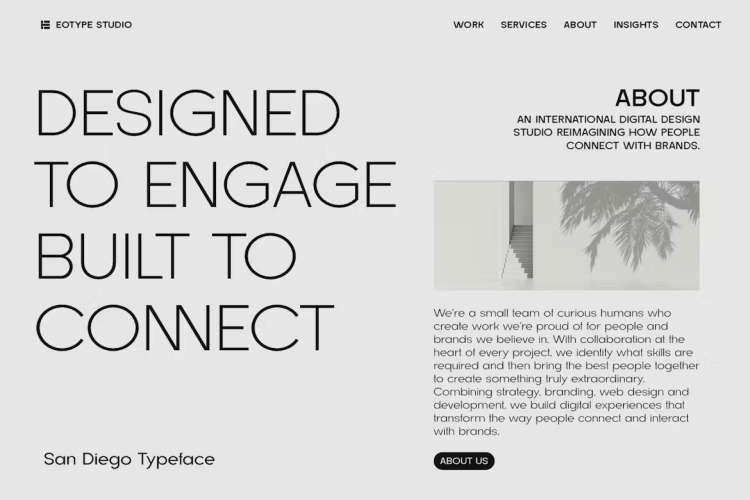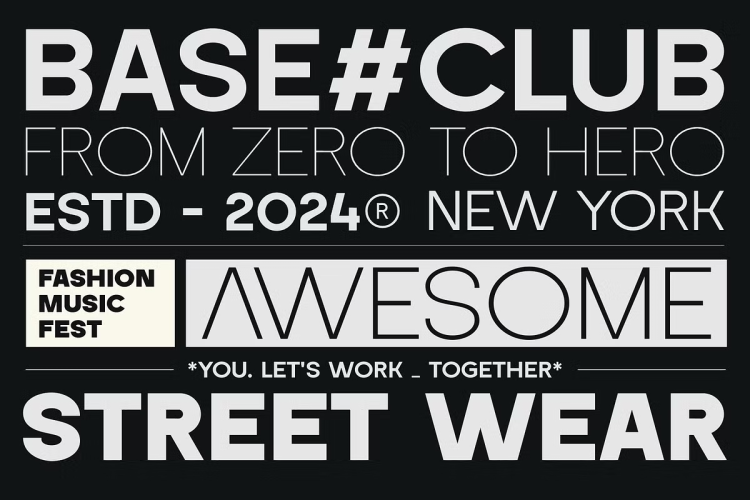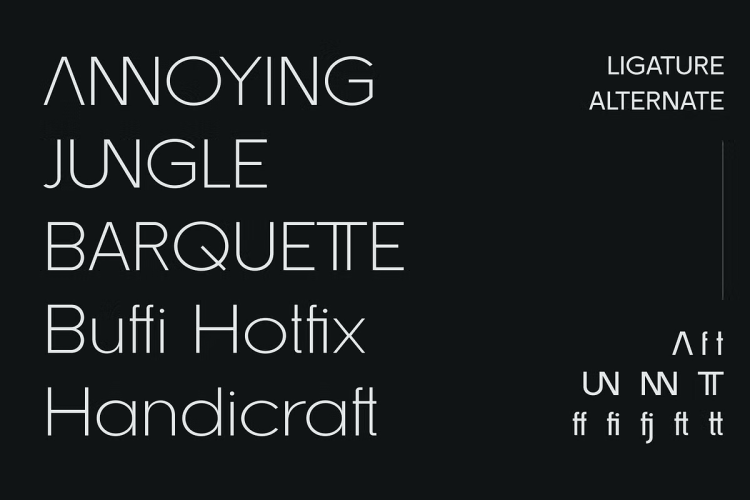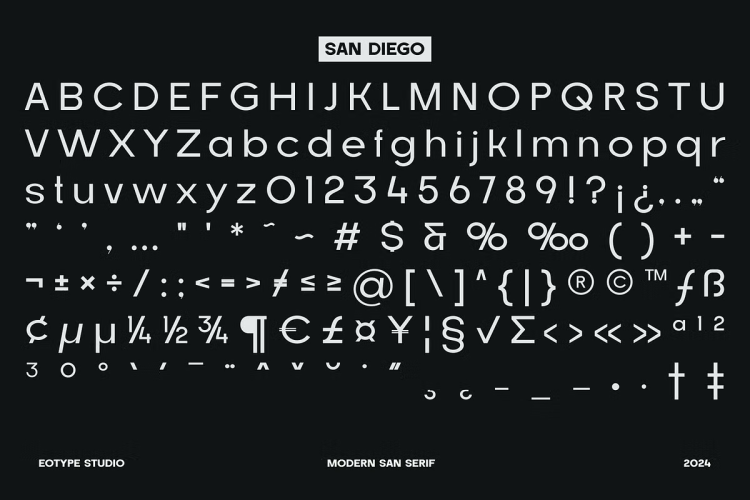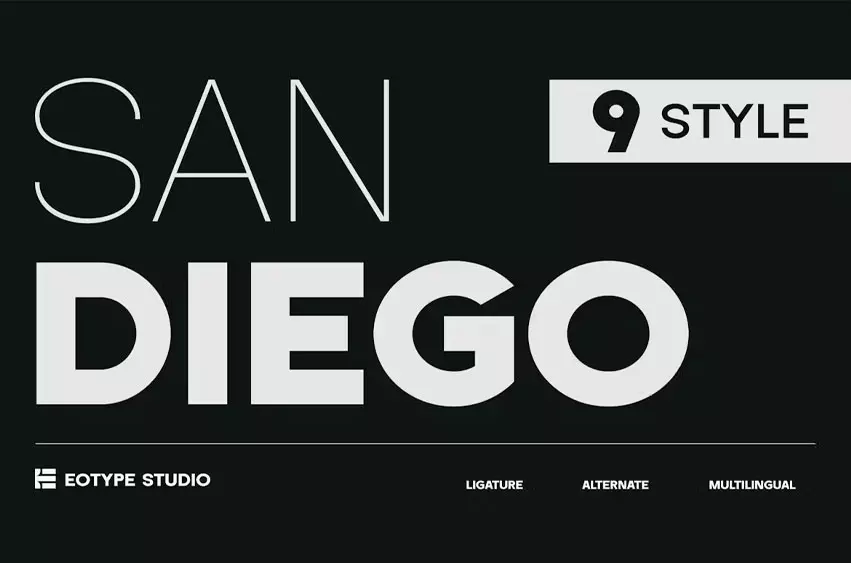
San Diego Font
San Diego Font is a new modern sans serif font created by Eotype Studio. It consists of 9 styles. The glyph shape is characterized by a geometric aesthetic outline. San…
San Diego Font is a new modern sans serif font created by Eotype Studio. It consists of 9 styles. The glyph shape is characterized by a geometric aesthetic outline. San Diego font suits various projects such as logos, brands, posters, etc. This font comes with alternate and ligature features.
Where San Diego Font works best
San Diego Font stays legible at small sizes, which makes it a strong choice for navigation, buttons and dashboards in web design and app interfaces.
Clean sans serifs like San Diego Font are the default language of SaaS, fintech and product branding.
What is San Diego Font good for?